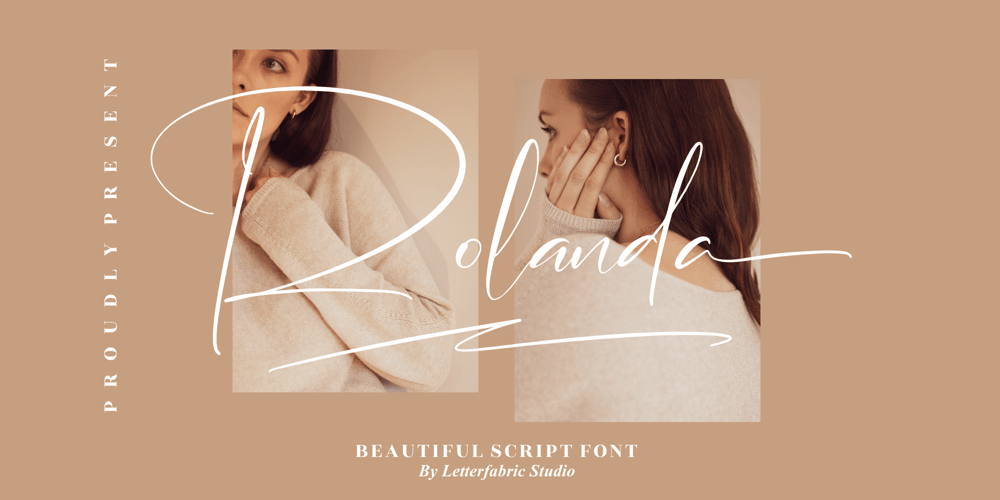
Rolanda Font Family was designed by Heru Utama Putra and published by Letterena Studios. Rolanda contains 2 styles and family package options. Rolanda feels equally charming and elegant. It looks stunning on wedding invitations, thank you cards, quotes, greeting cards, logos, business cards and more. This font is PUA encoded which means you can access all glyphs and swashes with ease!